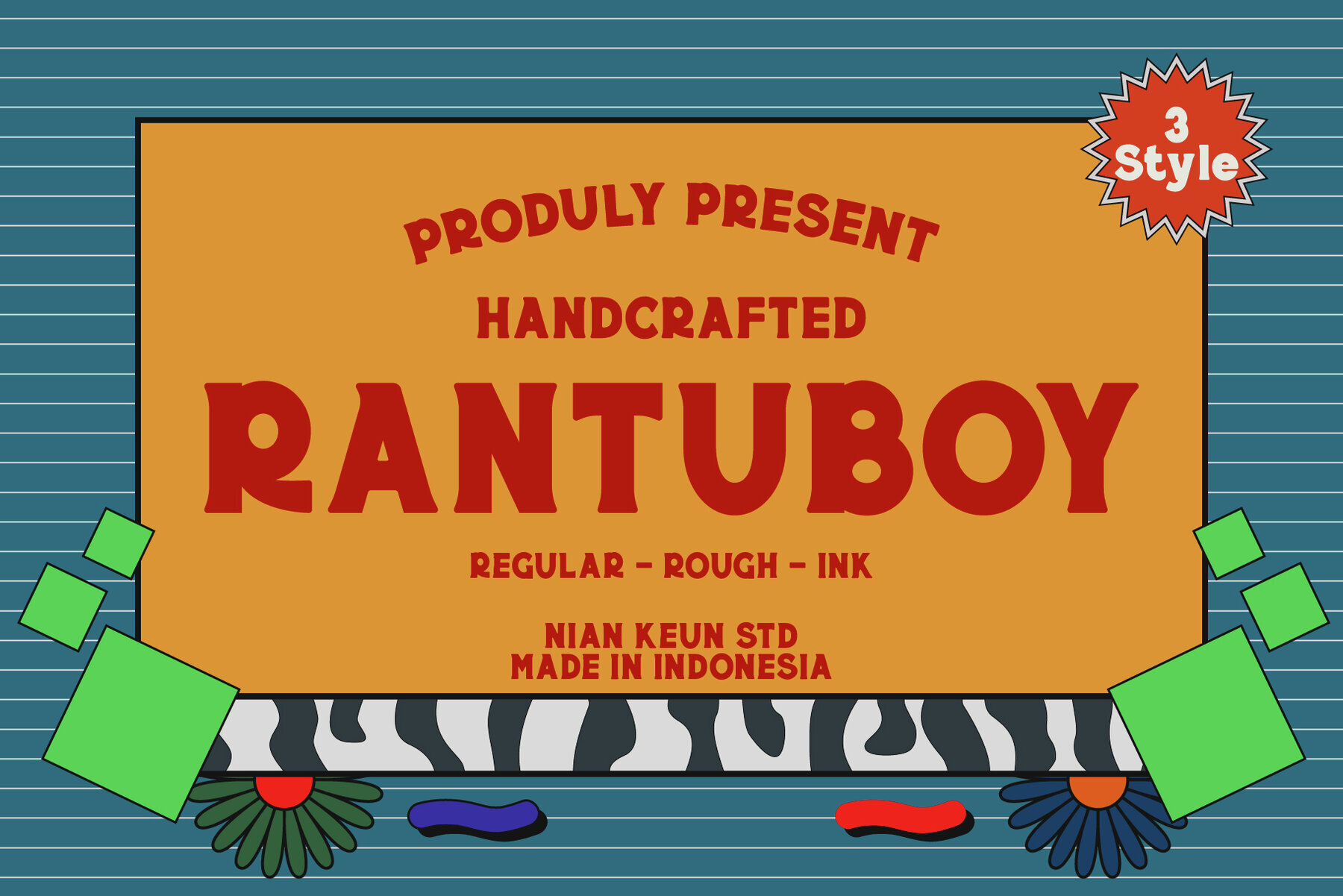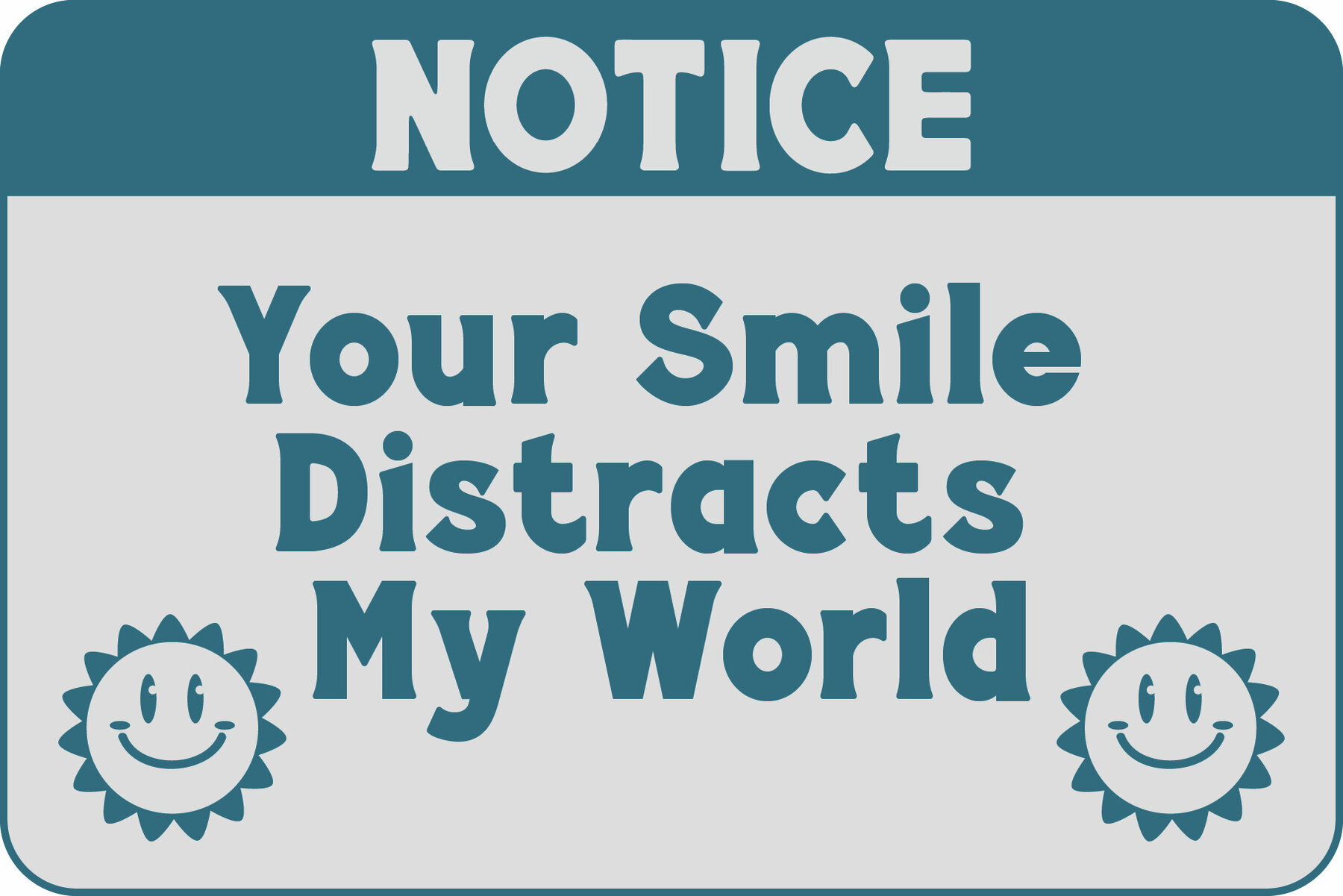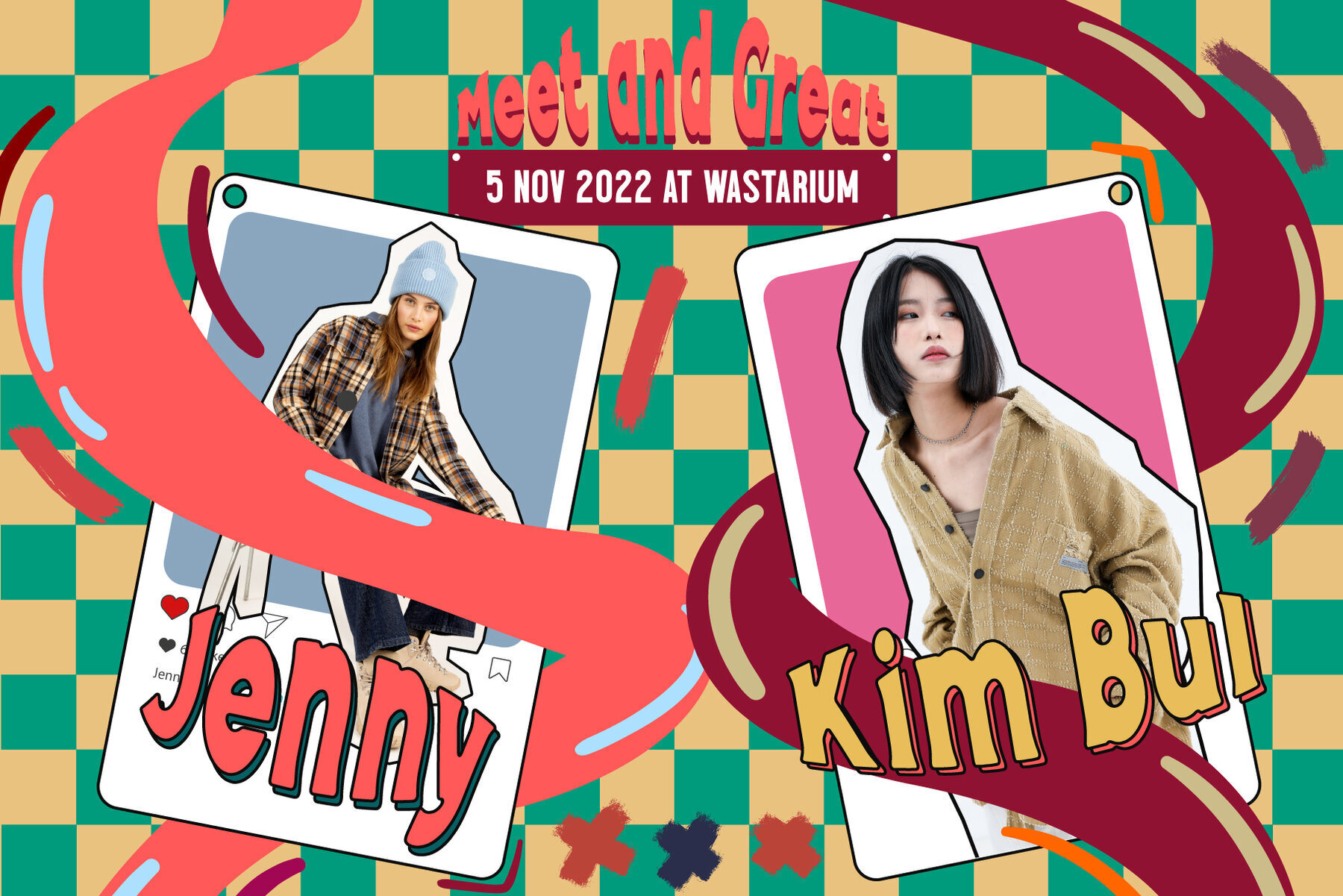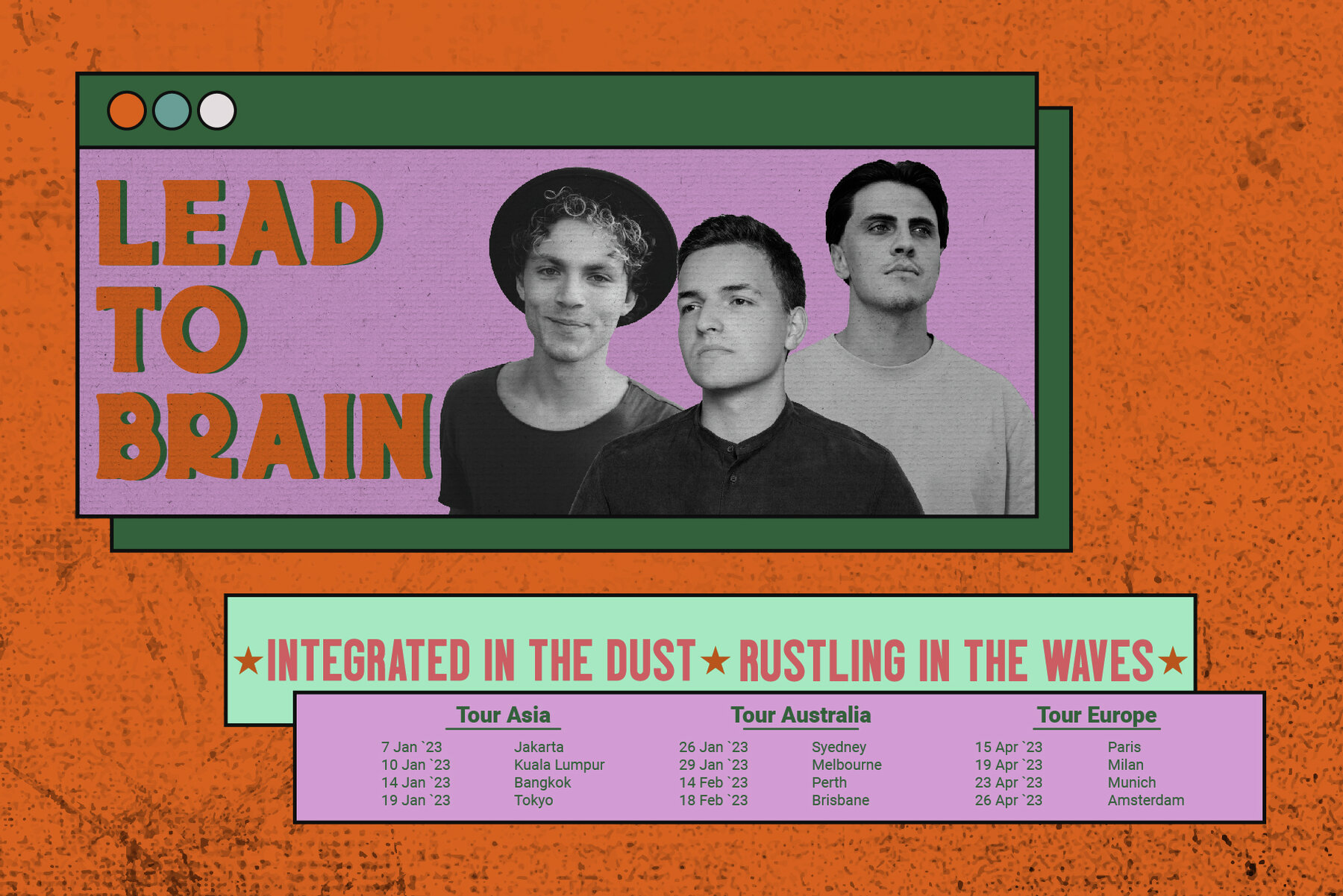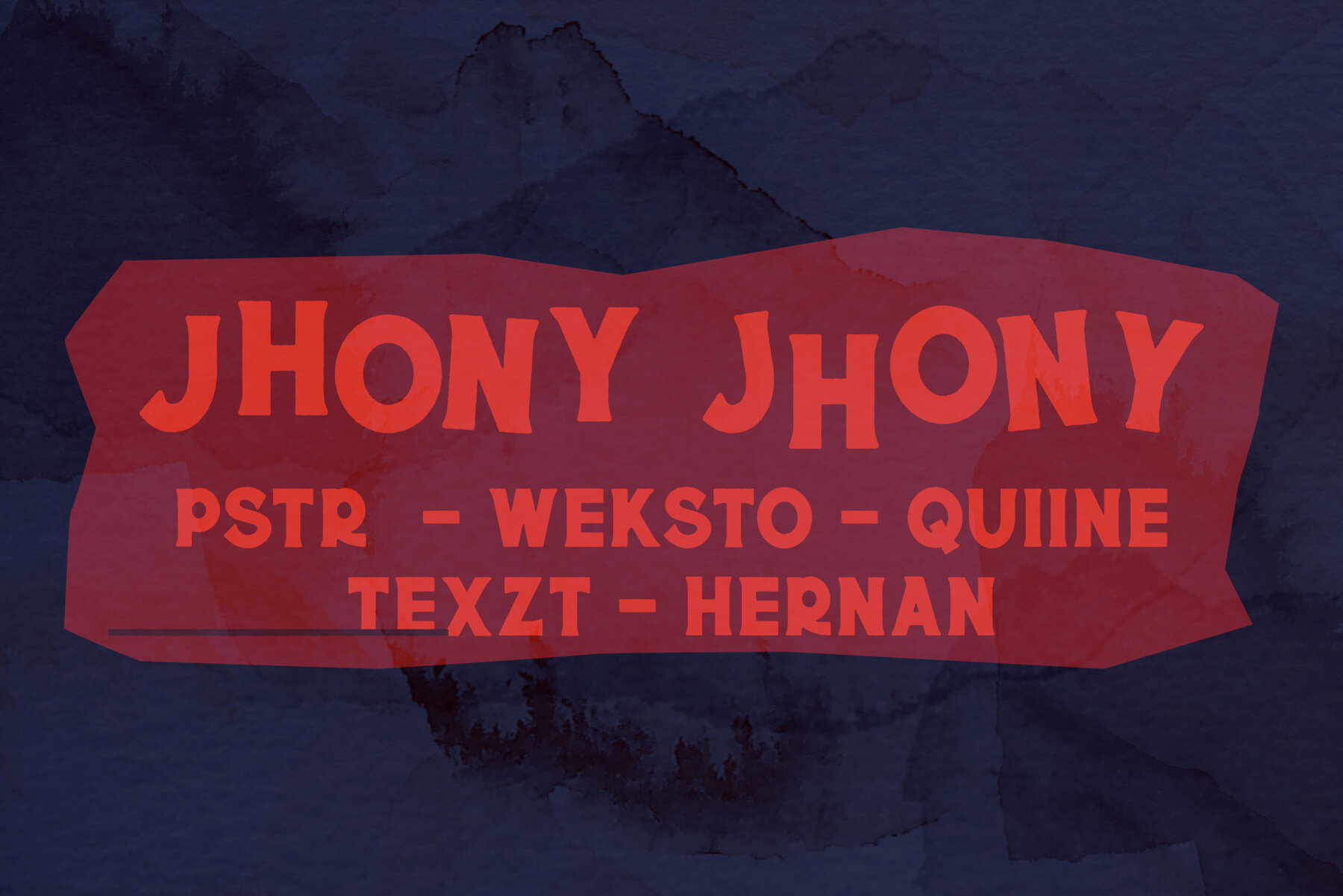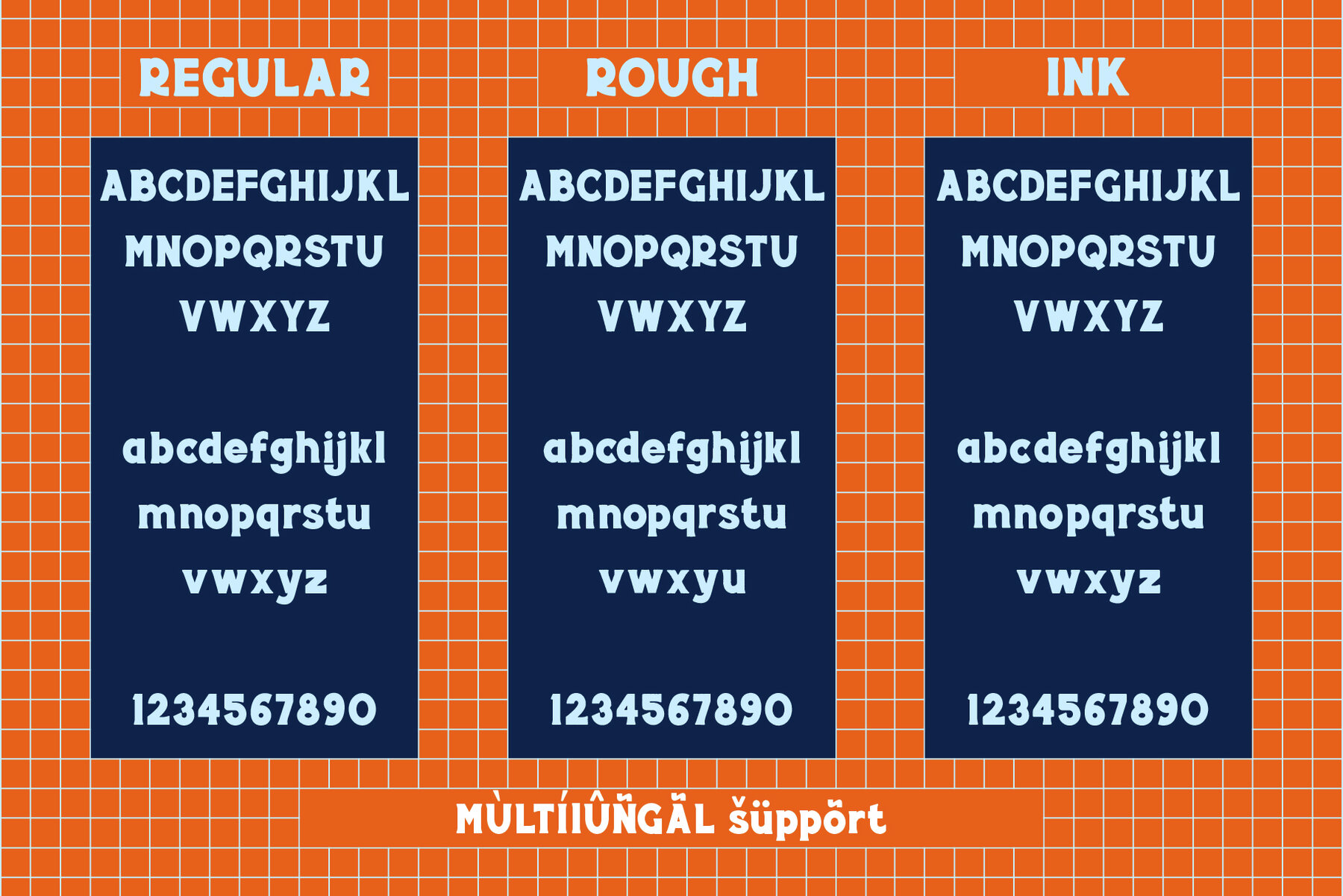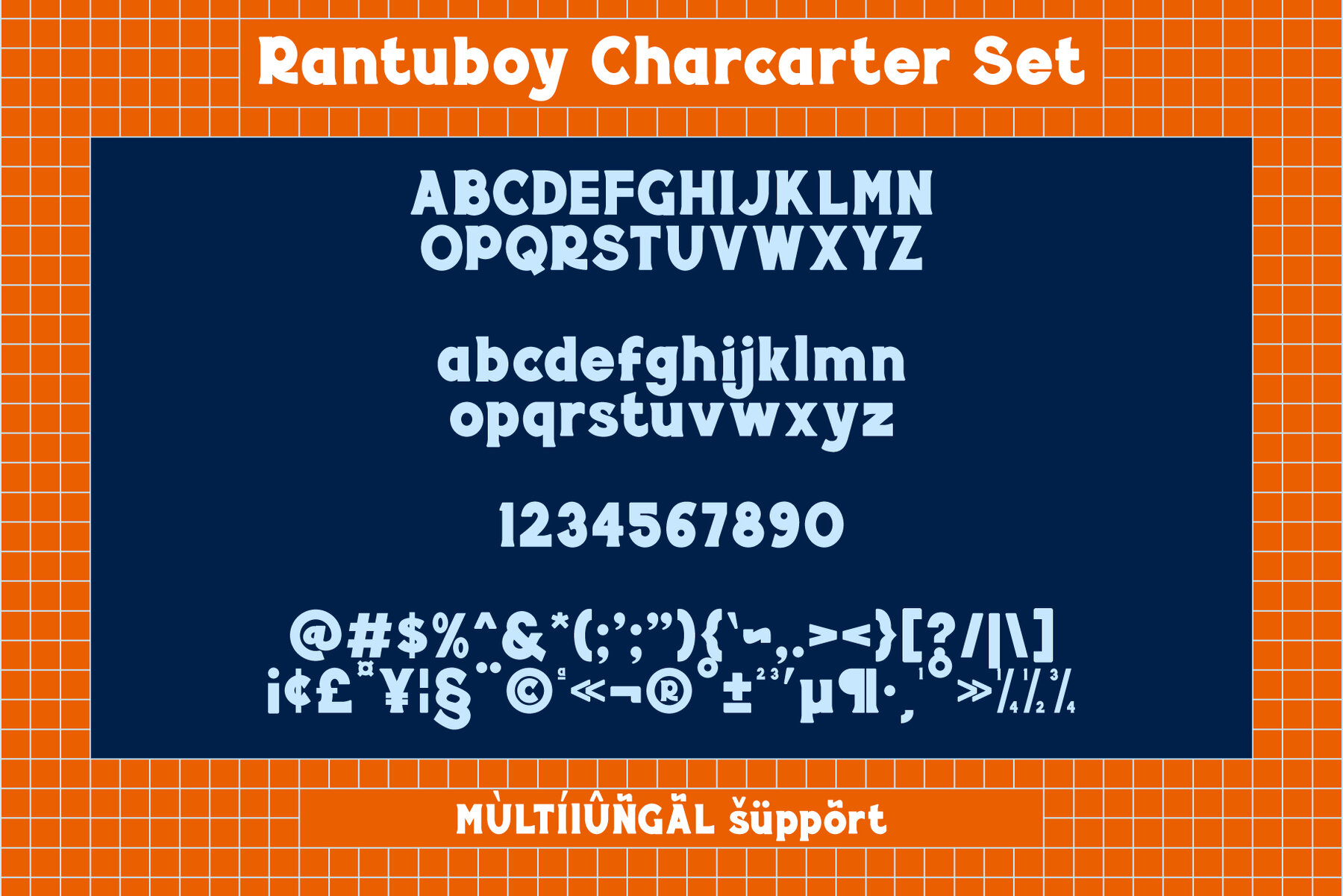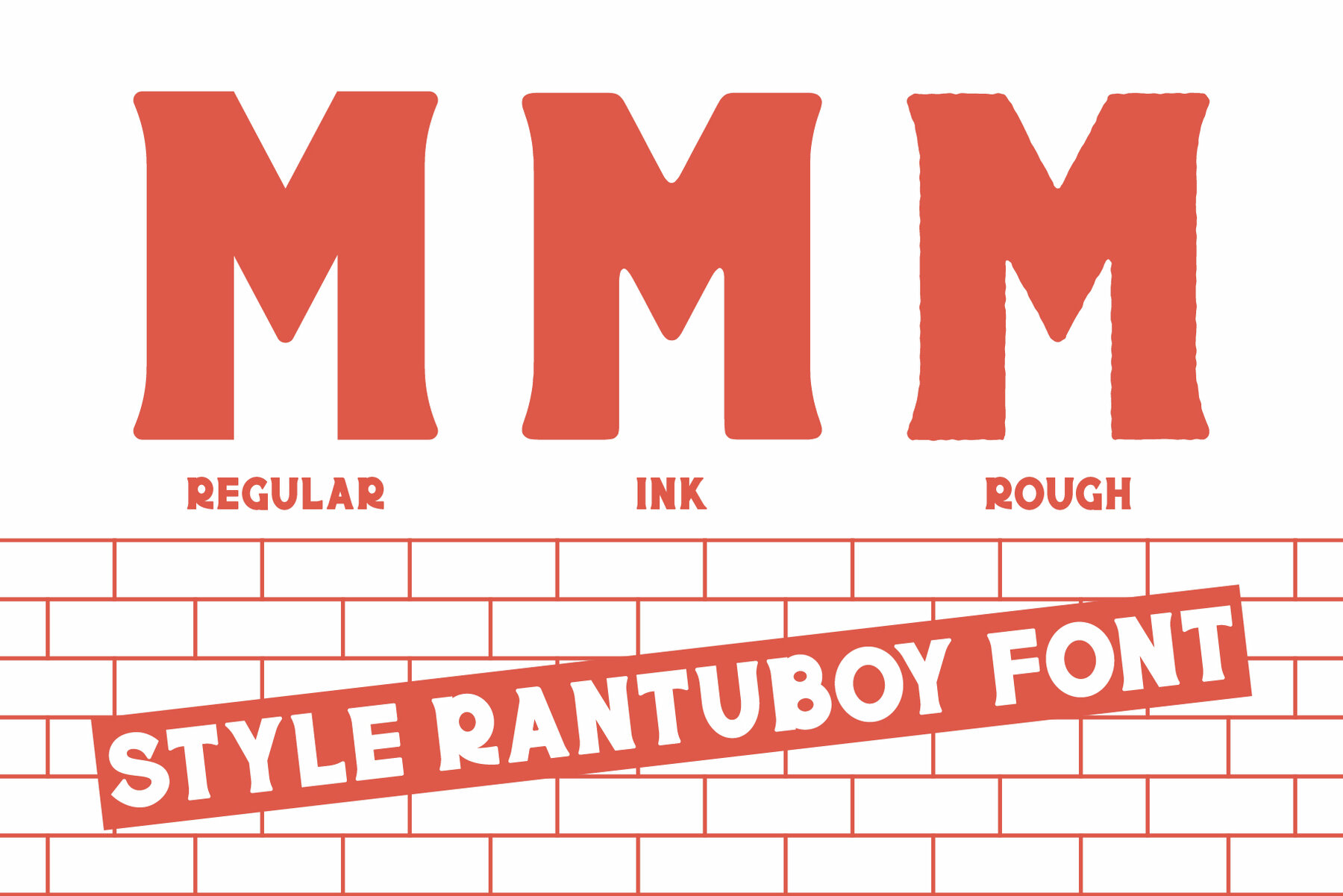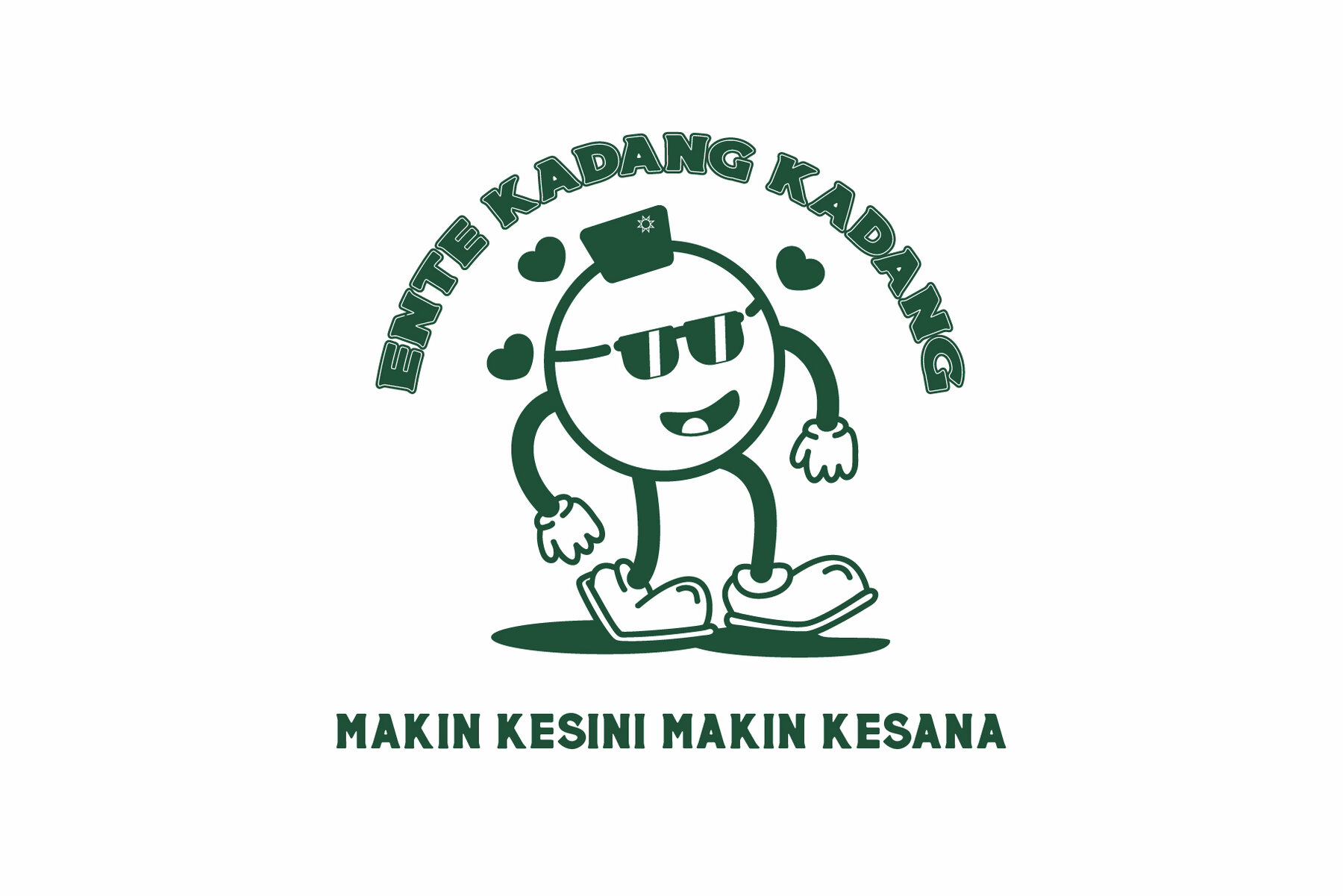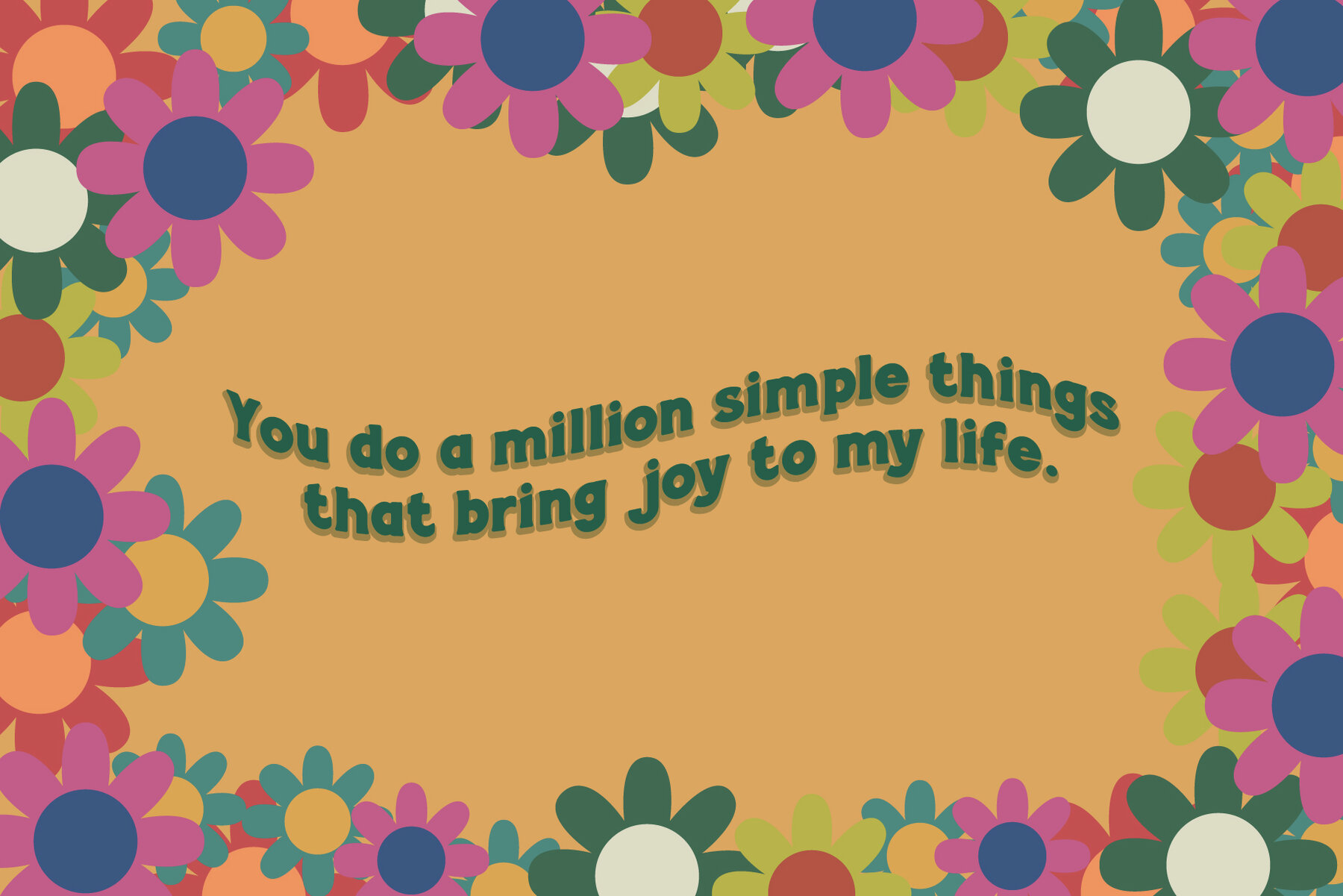
Rantuboy Font
Rantuboy draws inspiration from retro and vintage styles, offering an attractive typeface that stands out with its bold presence. This font is perfect for adding a unique touch to festival posters, t-shirt designs, logos, greeting cards, and other creative projects. The design elements of Rantuboy effortlessly enhance illustrations, making them appear cooler and more dynamic.Rantuboy: A Retro-Inspired Font with Vintage Character